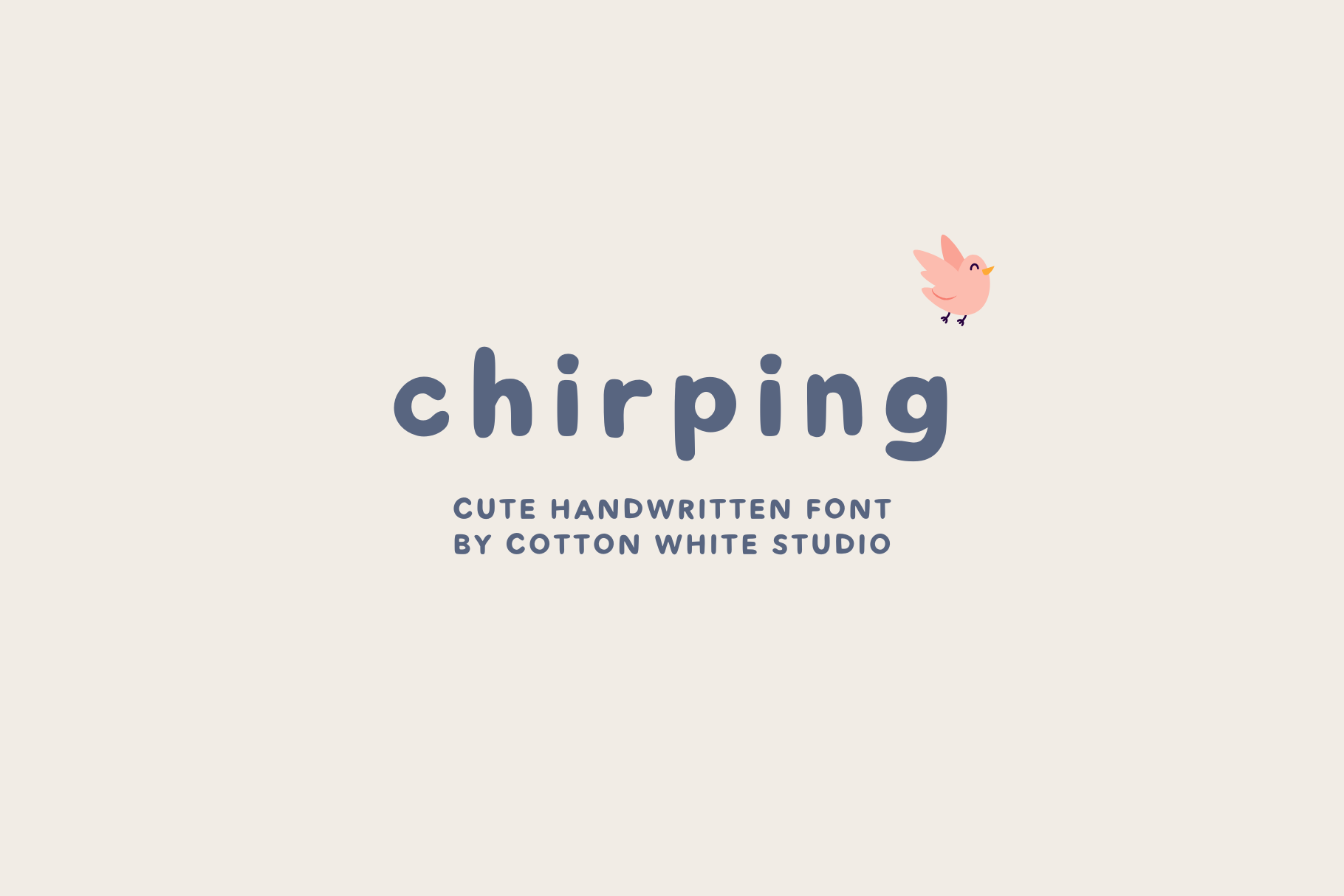
Chirping Cute Font
Looking for a font that feels simple but personal and charming? Our handwritten font is minimalistic, cute, and full of character—imperfectly perfect for adding a warm, authentic touch to your designs. Whether you're crafting invitations, quotes, or branding, it’s the perfect way to make your project feel uniquely yours!